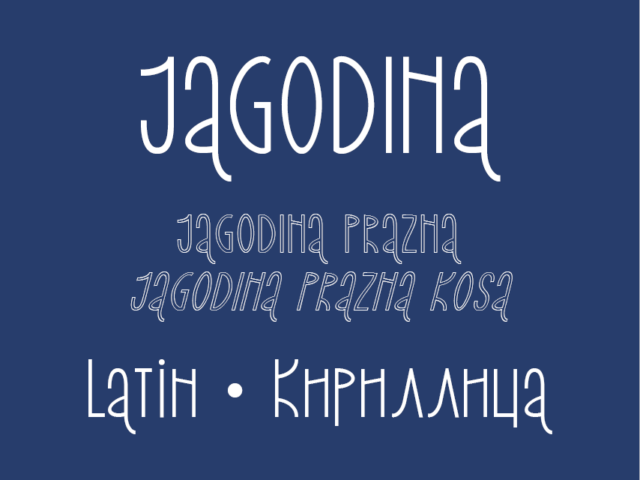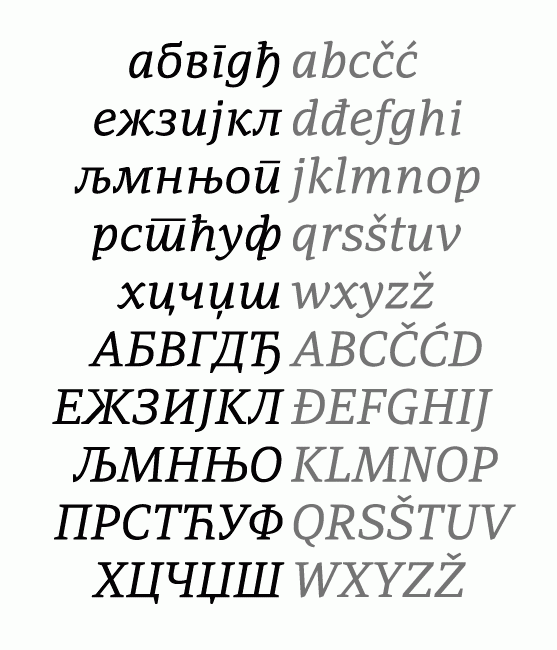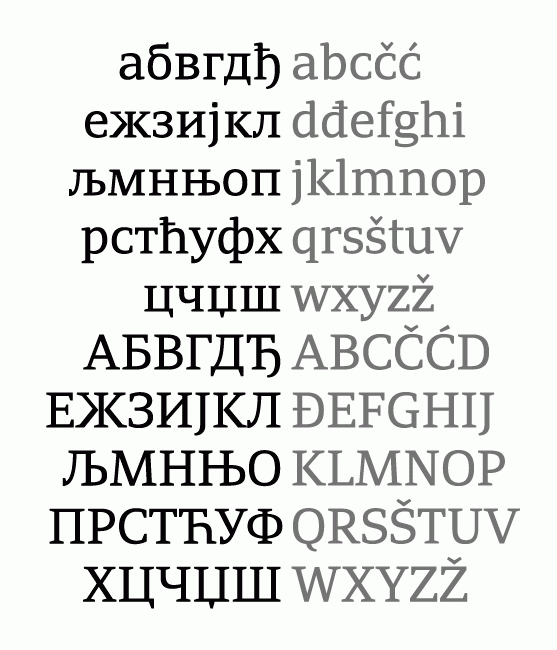
Adamant BG is a modern serif font for Serbian Cyrillic. The typeface comes in Regular, Italic, Bold, Bold Italic. • Design: Vedran Erakovic • Vedran Erakovic on Behance • Vedran Erakovic on MyFonts • DOWNLOAD LINK for OTF • DOWNLOAD LINK for TTF
Adamant Sans BG is a modern sans serif font for Serbian Cyrillic. The typeface comes in Regular, Italic, Bold, Bold Italic.
Design: Vedran Erakovic
Influ Bg is a modern sans serif font family for Serbian Cyrillic published in 2014 as part of the project Cyrillic as Gift. The typeface comes in Regular, Italic, Bold, Bold Italic. The project Cyrillic as Gift has been carried out since 2006 by Tipometar Association, with the aim of preserving and popularizing Cyrillic fonts in the digital environment. It consists of allowing free use of quality font families to all the domestic authors who wish to use Cyrillic fonts on their computers. Influ Bg was the ninth typeface to be published under this project. In 2014, the project was supported by the Ministry of Culture and Information of the Republic of Serbia.
Design: Stevan Ivic
LovelyBG is a handwritten font family for Serbian Cyrillic published as part of the project Cyrillic as Gift. The project Cyrillic as Gift has been carried out since 2006 by Tipometar Association, with the aim of preserving and popularizing Cyrillic fonts in the digital environment. It consists of allowing free use of quality font families to all the domestic authors who wish to use Cyrillic fonts on their computers. Influ Bg was the ninth typeface to be published under this project. In 2014, the project was supported by the Ministry of Culture and Information of the Republic of Serbia.
Design: Jane Oršolić
Nokturno BG is a modern serif font family for Serbian Cyrillic published as part of the project Cyrillic as Gift. The typeface comes in Regular, Italic, Bold, Bold Italic. The project Cyrillic as Gift has been carried out since 2006 by Tipometar Association, with the aim of preserving and popularizing Cyrillic fonts in the digital environment. It consists of allowing free use of quality font families to all the domestic authors who wish to use Cyrillic fonts on their computers. Influ Bg was the ninth typeface to be published under this project. In 2014, the project was supported by the Ministry of Culture and Information of the Republic of Serbia.
Design: Marije Rnjak
Reasavska BG is a modern serif font family for Serbian Cyrillic published as part of the project Cyrillic as Gift. The typeface comes in Regular, Italic, Bold, Bold Italic. The project Cyrillic as Gift has been carried out since 2006 by Tipometar Association, with the aim of preserving and popularizing Cyrillic fonts in the digital environment. It consists of allowing free use of quality font families to all the domestic authors who wish to use Cyrillic fonts on their computers. Influ Bg was the ninth typeface to be published under this project. In 2014, the project was supported by the Ministry of Culture and Information of the Republic of Serbia.
Design: Olivere Stojadinović
Andika is a sans serif, Unicode-compliant font designed especially for literacy use, taking into account the needs of beginning readers. The focus is on clear, easy-to-perceive letterforms that will not be readily confused with one another.
Starting with an initial draft of a basic lowercase Latin alphabet by Victor Gaultney, Annie Olsen refined the design and added over 4,700 glyphs, including a complete extended Cyrillic set.
A sans serif font is preferred by some literacy personnel for teaching people to read. Its forms are simpler and less cluttered than those of most serif fonts. For years, literacy workers have had to make do with fonts that were not really suitable for beginning readers and writers. In some cases, literacy specialists have had to tediously assemble letters from a variety of fonts in order to get all of the characters they need for their particular language project, resulting in confusing and unattractive publications. Andika addresses those issues.
One font from this typeface family is included in this release, Andika Regular. A future release will include Italic, Bold and Bold-Italic.
Jasminum is a calligraphic free handwriting typeface named after it’s author. The typeface is perfect for adding a personal touch for your design projects.
Design: Jasmina Zornic
Jasmina Zornic: Behance
Neoplanta BG is a modern serif font for Serbian Cyrillic. The typeface comes in Regular, Regular Italic, Bold, Bold Italic.
Reasavska BG San is a modern sans font family for Serbian Cyrillic published as part of the project Cyrillic as Gift. The typeface comes in Regular, Italic, Bold, Bold Italic. The project Cyrillic as Gift has been carried out since 2006 by Tipometar Association, with the aim of preserving and popularizing Cyrillic fonts in the digital environment. It consists of allowing free use of quality font families to all the domestic authors who wish to use Cyrillic fonts on their computers. Influ Bg was the ninth typeface to be published under this project. In 2014, the project was supported by the Ministry of Culture and Information of the Republic of Serbia.
Design: Olivere Stojadinović